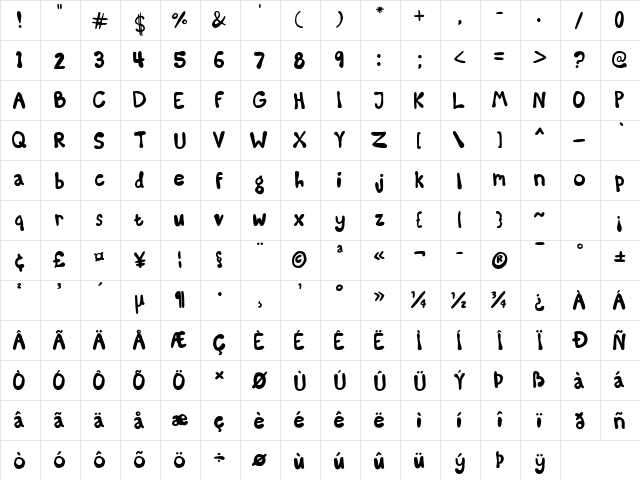
Some Kinda Madness Regular
Design Context for Some Kinda Madness Typeface
Some Kinda Madness is a composed and adaptable typeface that performs quietly and consistently across a wide range of design contexts.
Pro Tip: Use Some Kinda Madness in both headline and body roles to test its range before committing to a single application.